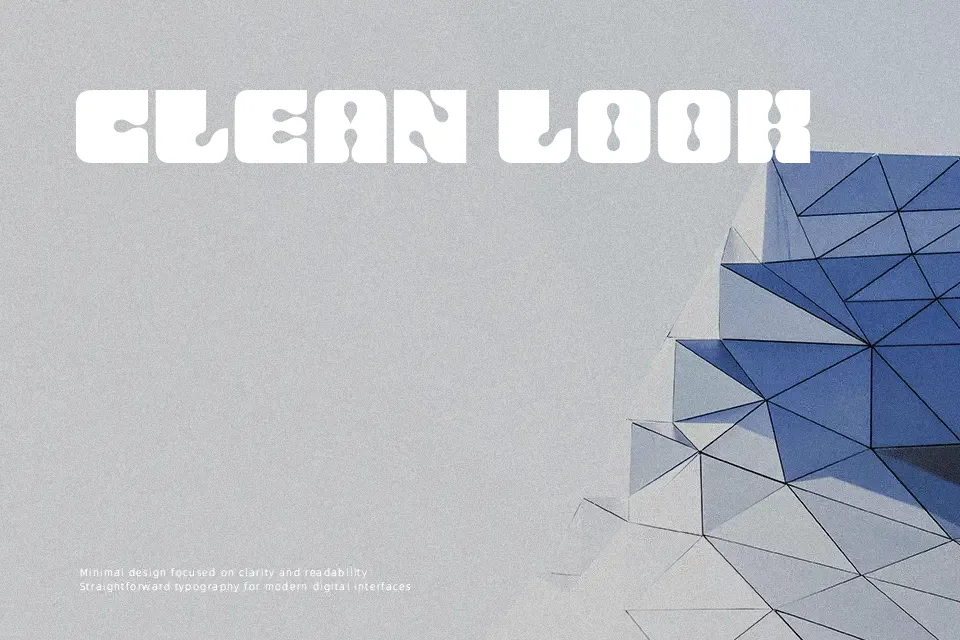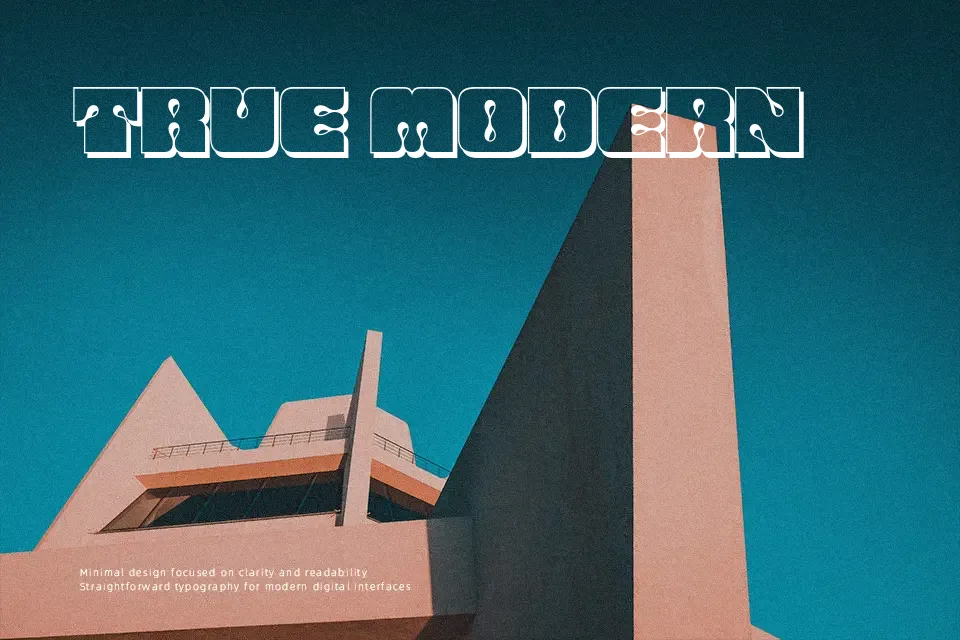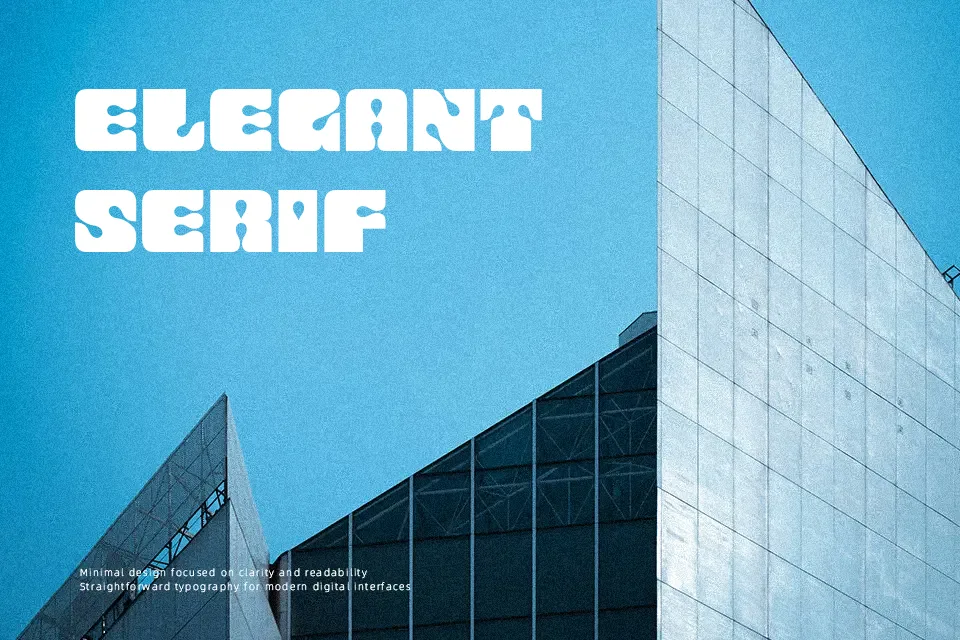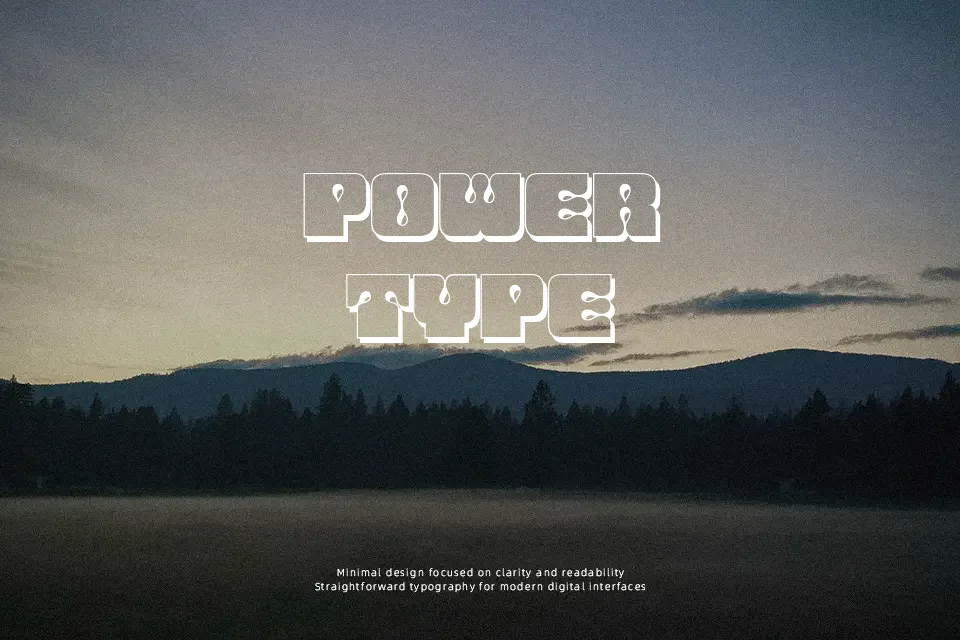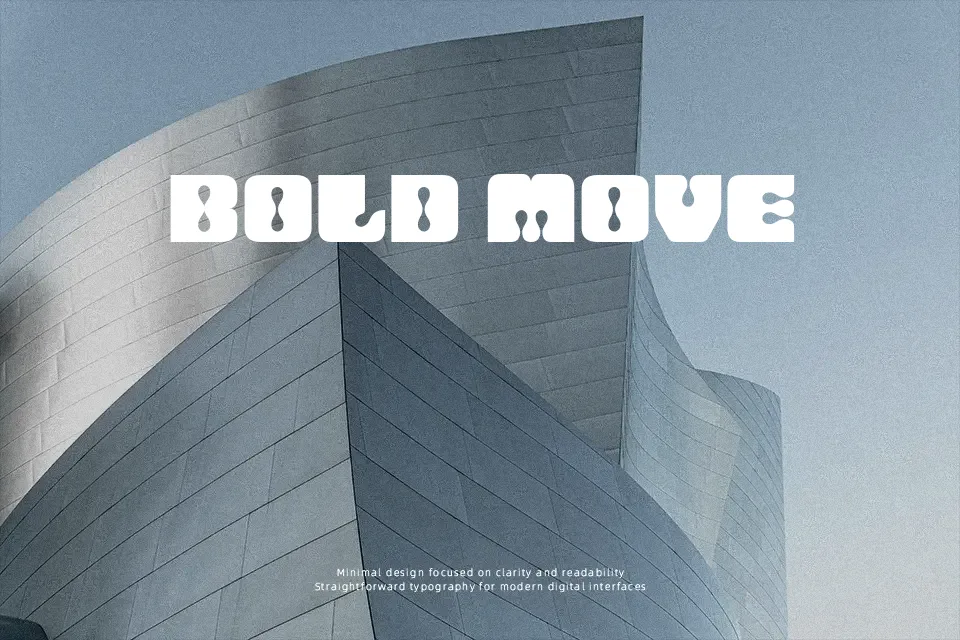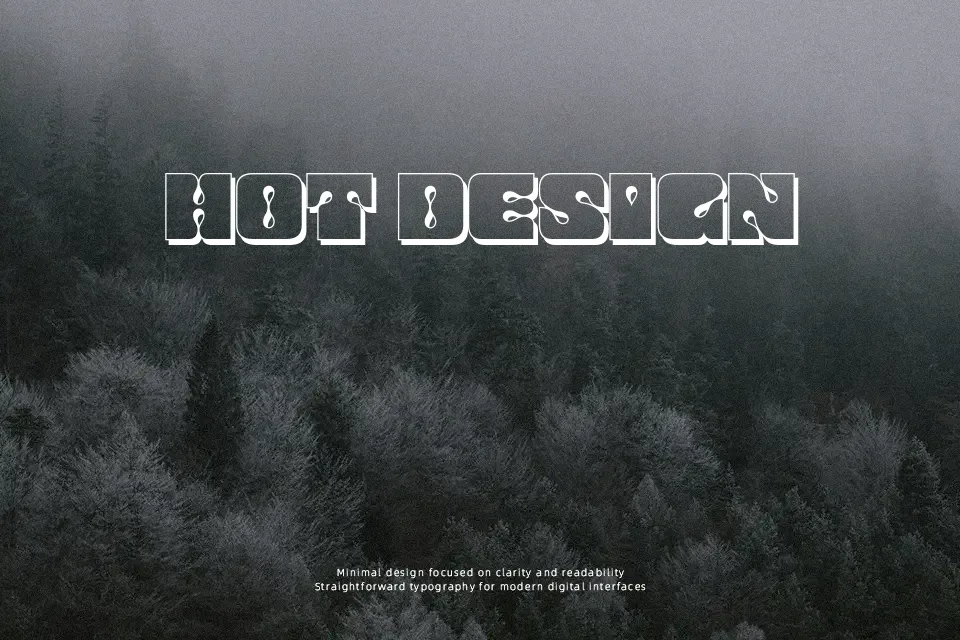
Pioppo Font
Pioppo Font uses bold geometric construction and stencil-like breaks to give each letter a structured, decorative presence. The strokes appear firm and largely even, while the cutout details create visual contrast within otherwise broad proportions. Spacing feels controlled enough for short words and stacked headlines, especially when set large. Uppercase forms have a consistent rhythm, and the visible numerals follow the same angular language. It works best when the shapes are allowed room to stand out. The decorative interruptions can reduce quick recognition in small settings, so this typeface is less comfortable for continuous reading or compact informational text.